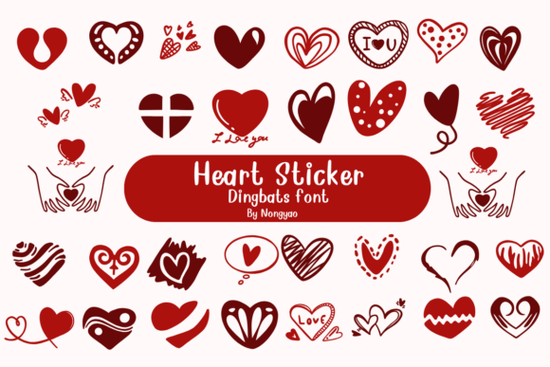
If you're looking for a playful, hand-drawn font that works as both text and decoration especially for Valentine’s Day, wedding stationery, or cheerful social media graphics the Heart Sticker Font is a straightforward choice. It’s not just another script font: it’s designed to feel like stickers you’d peel and stick onto notebooks, cards, or digital layouts. You get OTF and TTF files for desktop apps, plus native support for Procreate and Affinity apps (Designer, Photo, and Publisher), so whether you’re sketching on iPad or prepping print files, it integrates smoothly.
What makes this font different from other heart-themed fonts?
Most “heart fonts” are either too formal (like serifed calligraphy) or too rigid (single-line vector hearts). The Heart Sticker Font sits in a sweet spot: each character is built from friendly, slightly uneven outlines think doodled hearts, tiny arrows, stars, and love notes all arranged as letters. That means typing “LOVE” gives you four distinct, cohesive sticker-style glyphs not just repeated heart icons. It also includes a full set of lowercase, uppercase, numbers, and punctuation, so you can build real words, not just symbols.
Because it’s categorized under Dingbats Doodle Cartoon, it works well alongside other playful design assets like hand-drawn borders, watercolor textures, or chalkboard-style lettering. If you’ve used dingbat fonts before (like Wingdings or Webdings), you’ll recognize the logic but this one feels intentional and craft-focused, not generic.
How do designers and small businesses actually use it?
We’ve seen this font applied in practical ways across real projects:
- Print-on-demand sellers layer it over minimalist mugs or tote bags typing “You’re my person” in the font creates instant visual charm without needing custom illustration.
- Wedding planners drop it into Canva or Affinity Designer for save-the-date cards, using the outline version for coloring pages or SVG cut files.
- Procreate users add it to digital planners or habit trackers, then recolor individual letters with the Fill tool no masking or layers needed.
- Crafters import the TTF into Cricut Design Space or Silhouette Studio for vinyl decals, especially when paired with the included coloring outline version for kids’ activity sheets.
For crafters who prefer physical tools, consider pairing it with gel pens or fine-tip markers when tracing the coloring outline version it’s intentionally drawn with consistent line weight and open shapes, making it easy to fill by hand.
- ✅ Your project needs a friendly, non-romantic-but-still-heartfelt tone (not formal invitations or corporate branding)
- ✅ You want to type real words not just copy-paste icons and still get that handmade sticker look